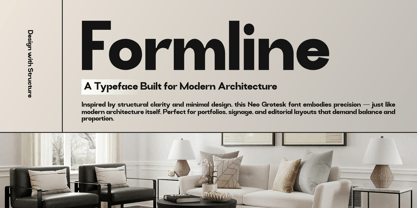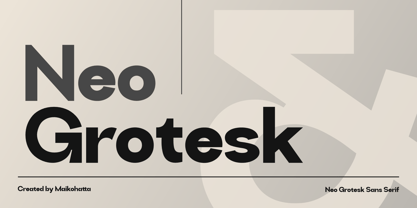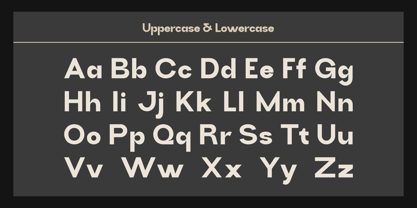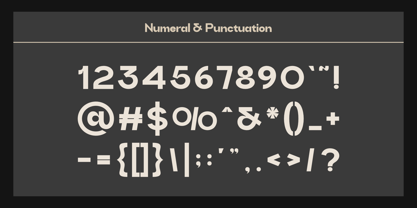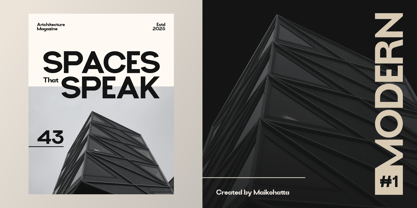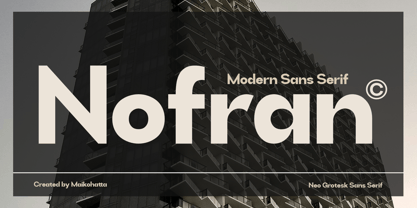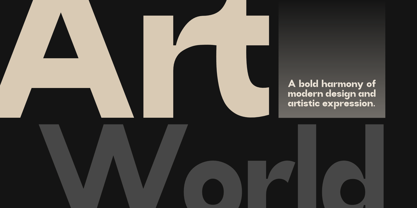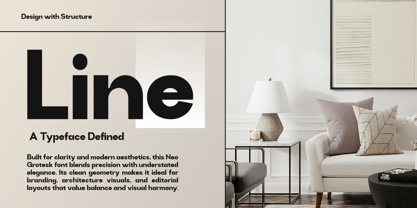
Nofran
The Nofran Font Family was designed by Gilang Ternadho and published by Maikohatta. Nofran contains 1 styles. More about this family
Introducing our new product Nofran - Modern Neo Grotesk Sans Serif Nofran is a modern sans serif typeface inspired by clean geometric forms and neo-grotesk aesthetics. Designed for versatility, it brings a sleek and contemporary tone to branding, editorial layouts, logos, and digital interfaces. Its balanced proportions and refined letterforms create a timeless, professional look—perfect for both bold headlines and minimalist body text. With its smooth curves and precise structure, Nofran embodies simplicity and confidence, making it ideal for designers seeking a modern and functional sans serif with character.